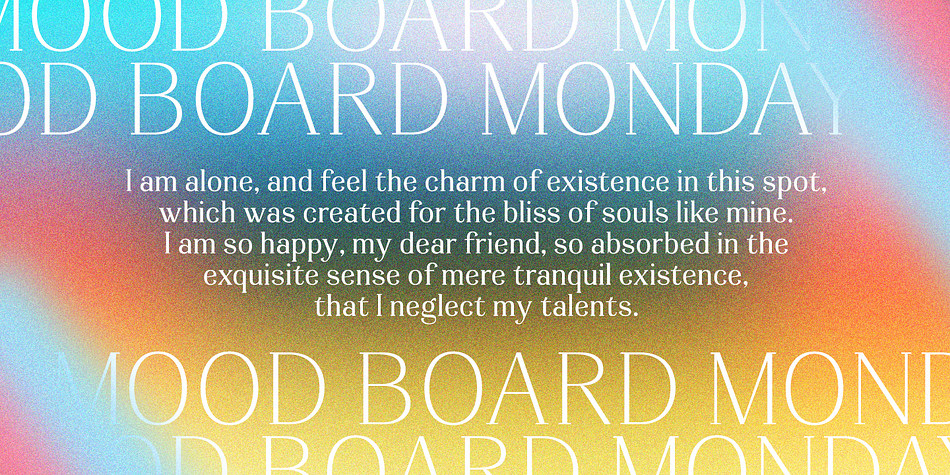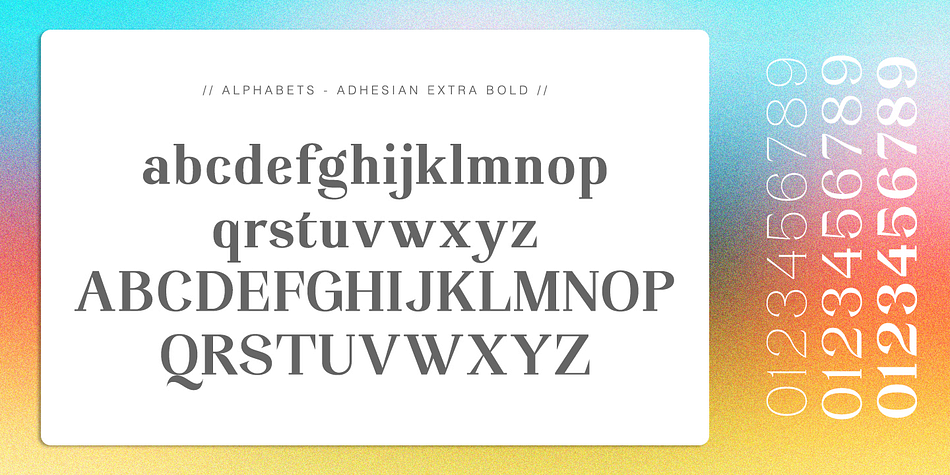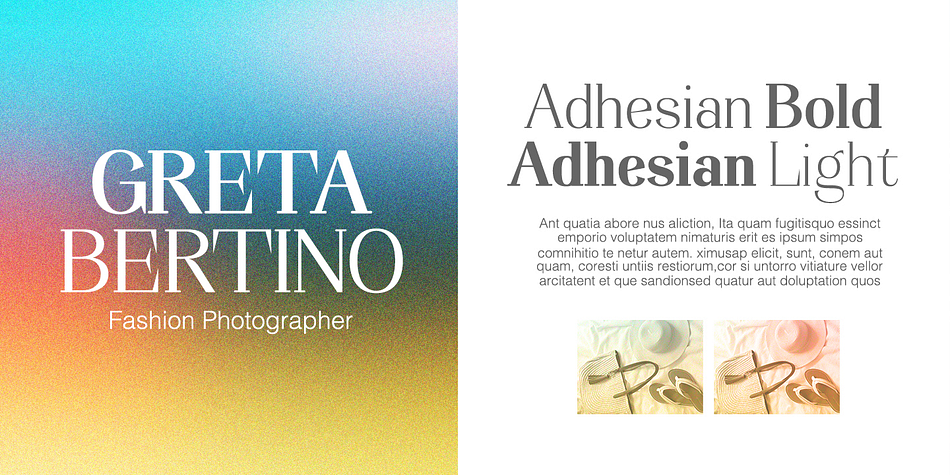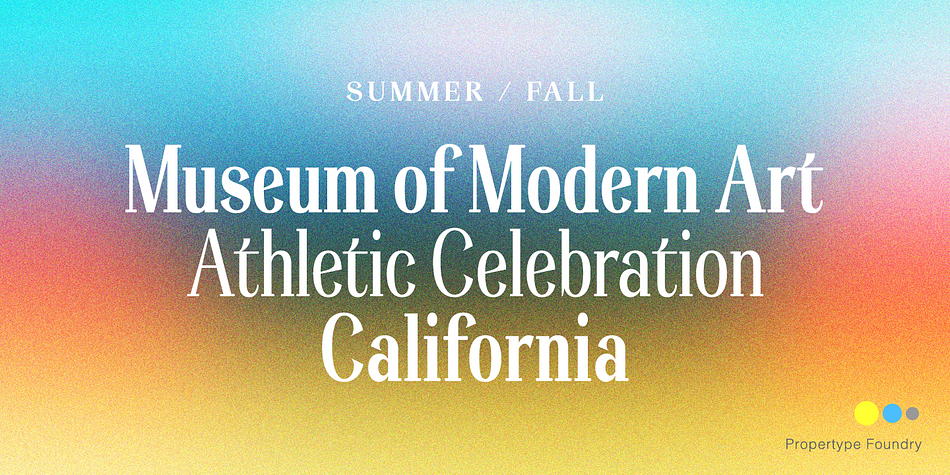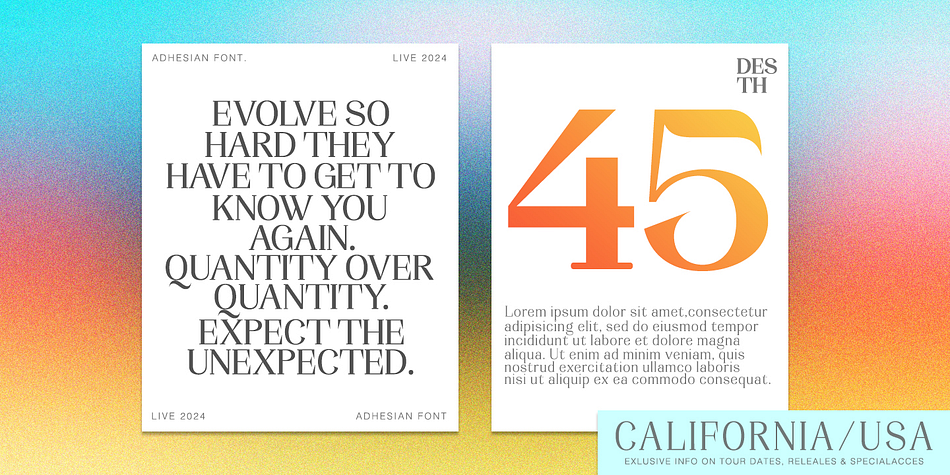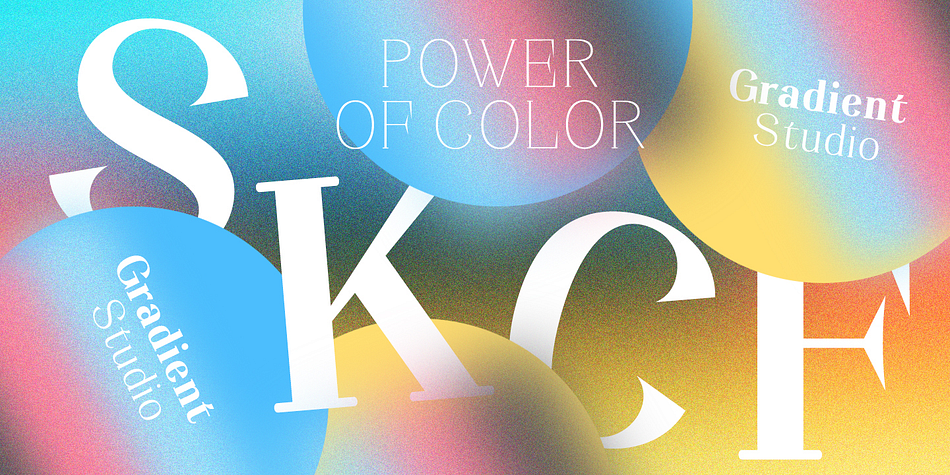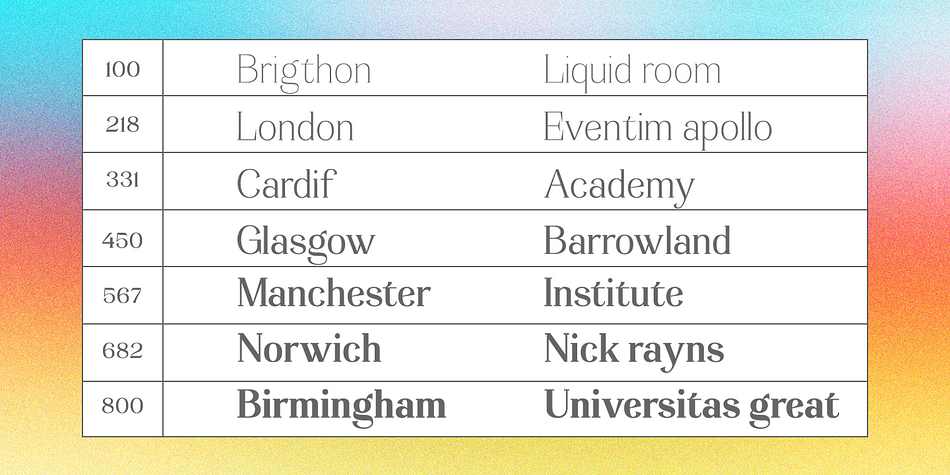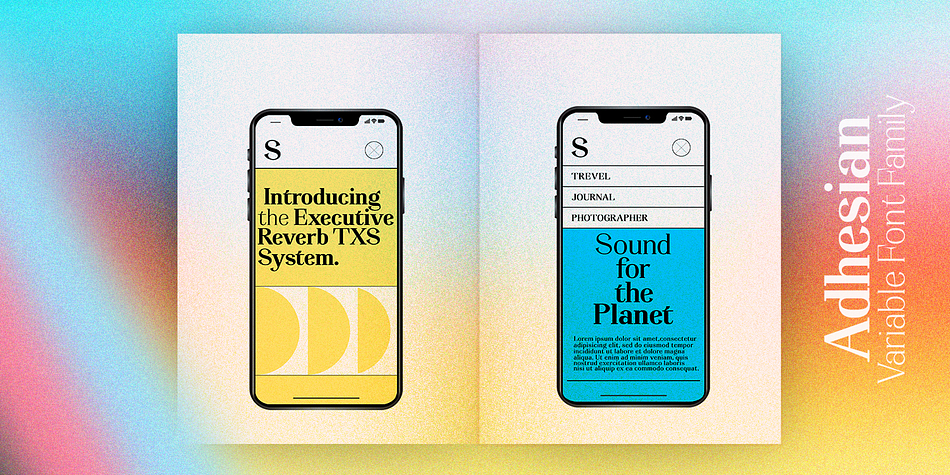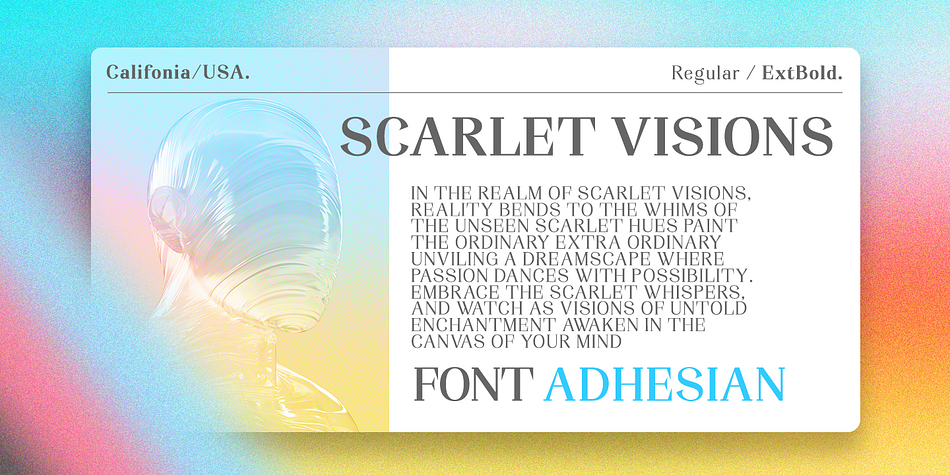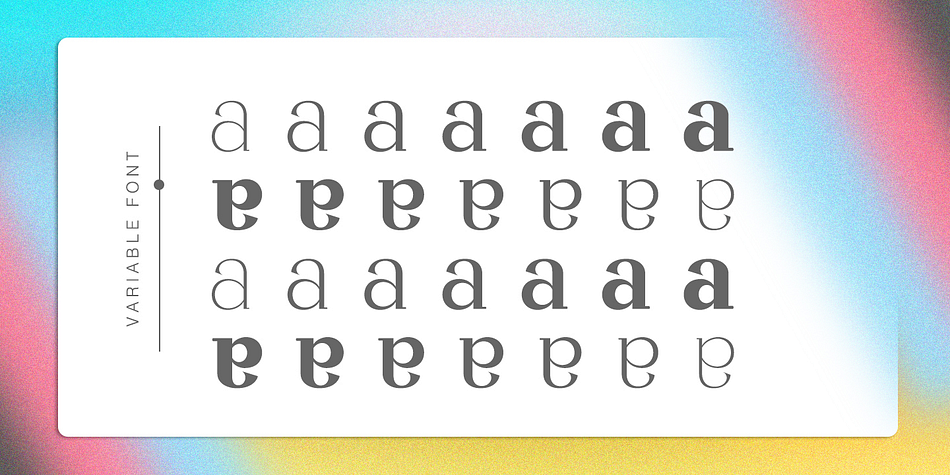
Adhesian
Adhesian is a serif font family. This typeface has eight styles and was published by propertype.
Introducing Adhesian, a beautifully refined serif font exuding an aura of elegance. Adhesian distinction lies in its harmonious blending of geometric forms with gracefully curvaceous elements, culminating in a font that possesses a singular, unique character. Embrace the sophistication of Adhesian for all your typographic needs. Available in seven weight. From thin to extra bold, latin based languages, opentype features, including ligatures and variable font included.